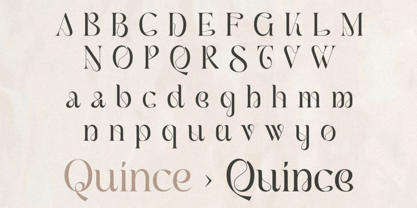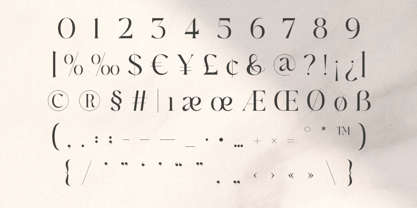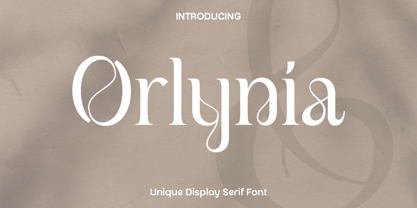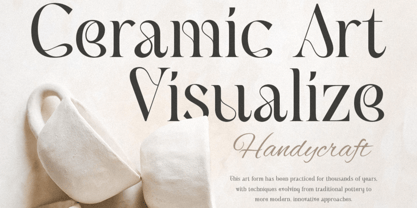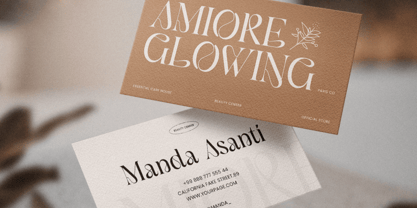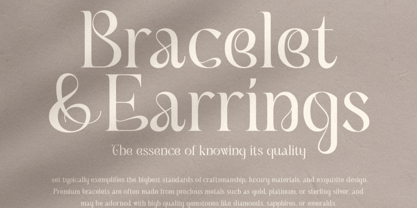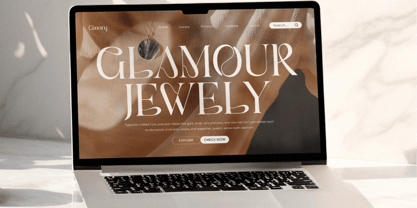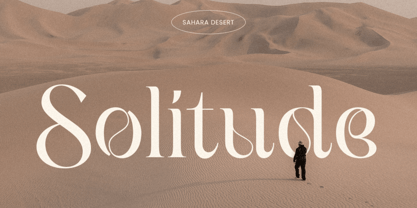
Orlynia
by Only Fonts
The Orlynia Font Family was designed by Olivia Love and published by Only Fonts. Orlynia contains 1 styles. More about this family
Orlynia – Unique Display Serif Font Orlynia is a unique display serif font designed to express elegance, creativity, and refined character in every detail. Inspired by the harmony of classic serif typography and modern artistic exploration, Orlynia features distinctive letterforms that feel both timeless and fresh. Each curve and serif is carefully shaped to create a graceful rhythm, giving your text a sophisticated presence that immediately stands out. This font shines in projects that require both beauty and personality. Orlynia is an excellent choice for luxury branding, editorial layouts, magazine headlines, invitations, logos, and high-end packaging. Its artistic structure allows designers to create eye-catching compositions while maintaining clarity and readability. Whether used in bold headlines or refined typographic accents, Orlynia delivers a polished and memorable visual impact. Orlynia carries a sense of charm and professionalism, making it suitable for both contemporary and classic design directions. Its versatility allows it to adapt seamlessly across digital and print media, giving designers the freedom to explore creative ideas with confidence. The balance between expressive details and structured form ensures that every design feels intentional and visually engaging. Let Orlynia elevate your work with its unique serif style, bringing a touch of distinction and elegance to every project. It is a perfect choice for designers who want to create designs that feel luxurious, artistic, and truly unforgettable. Orlynia Unique Display Serif Font Features: • Artistic serif characters ready • Unique punctuation, numbers, and symbols • Uppercase and lowercase • OpenType features • Multilingual support for 50 plus languages
Designers: Olivia Love
Foundry: Only Fonts